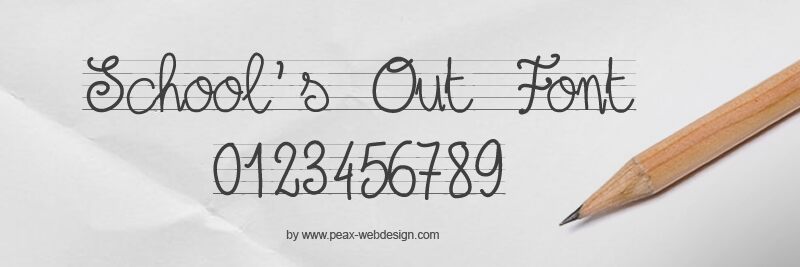
PW Schools Out by Peax Webdesign is a free school-style handwritten font with tall looping letters and an exuberant classroom scrawl. Its uneven joins and oversized curves feel quick and uncorrected.
Notebook doodles and ruled-paper illustrations give this lettering a natural setting in children's publishing, classroom posters, and back-to-school packaging. Its sweeping strokes can also become part of the artwork in playful event graphics and educational activity sheets instead of plain text.